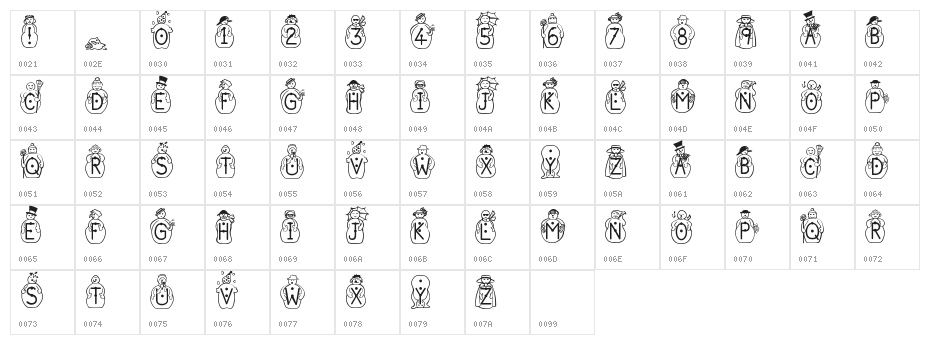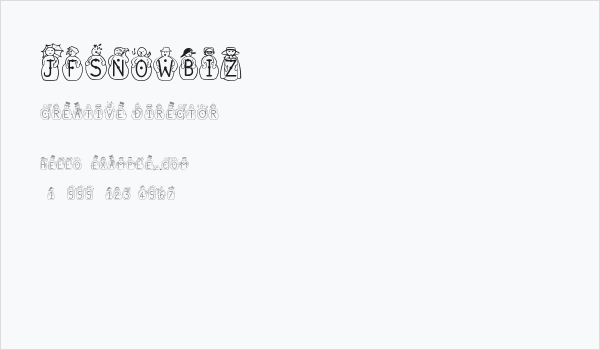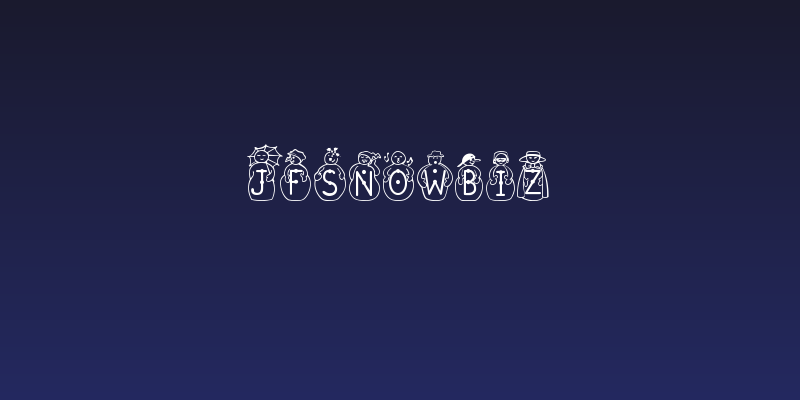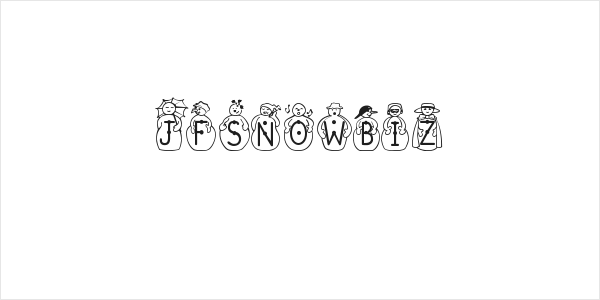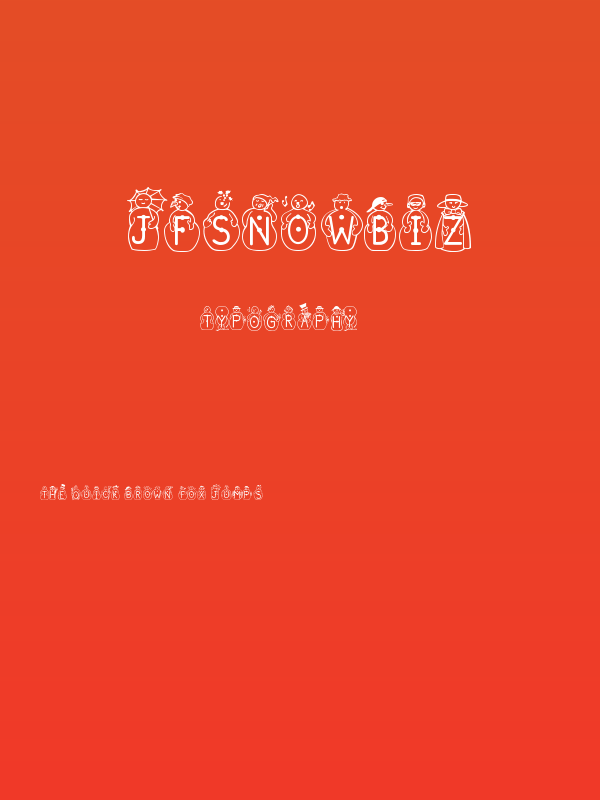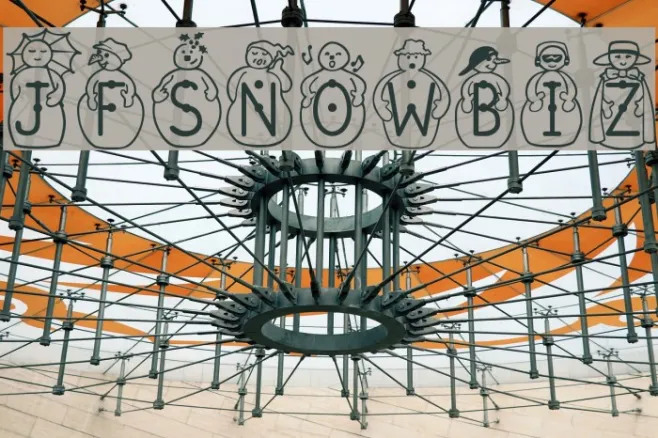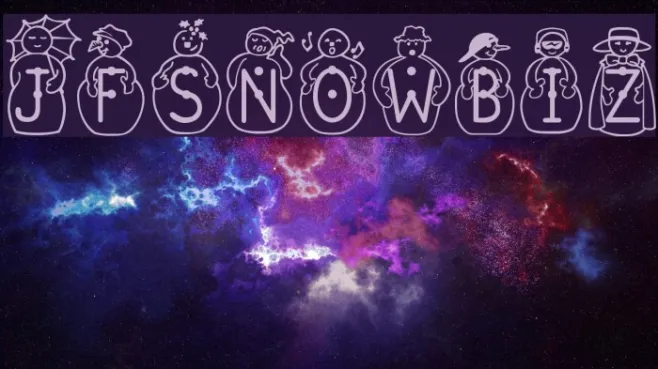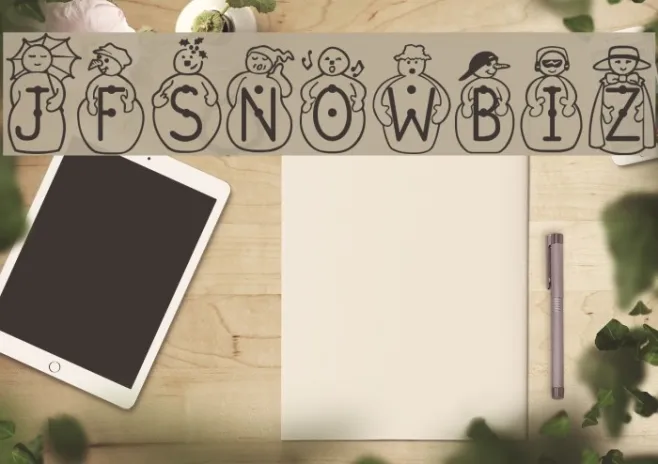
JFSnowbiz Font
JFSnowbiz Description
This playful and whimsical font features each character encased within a snowman, complete with various hats, scarves, and accessories. The letters and numbers are bold and clear, making them easily readable despite the decorative elements. Each snowman character adds a unique personality to the font, making it ideal for festive and winter-themed projects. The design is consistent across uppercase, lowercase, and numeric characters, maintaining a cohesive look. The special characters are also creatively integrated into the snowman theme, enhancing the overall playful aesthetic.
| Overall Style | Playful, Festive |
| Use Case | Headlines, Posters, Invitations |
| Proposed Projects | Ideal for holiday cards, winter festival posters, children's books, and festive event invitations. |